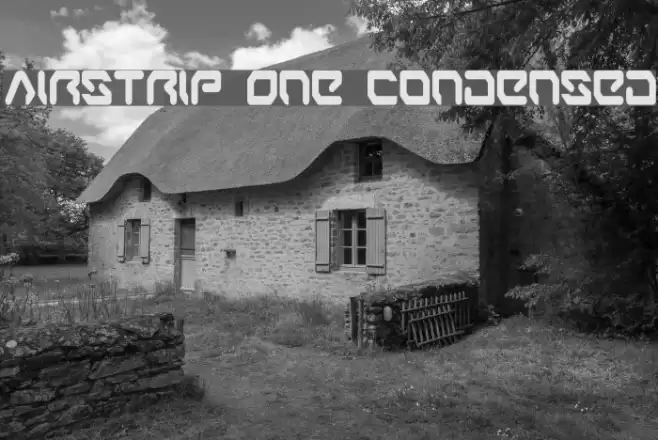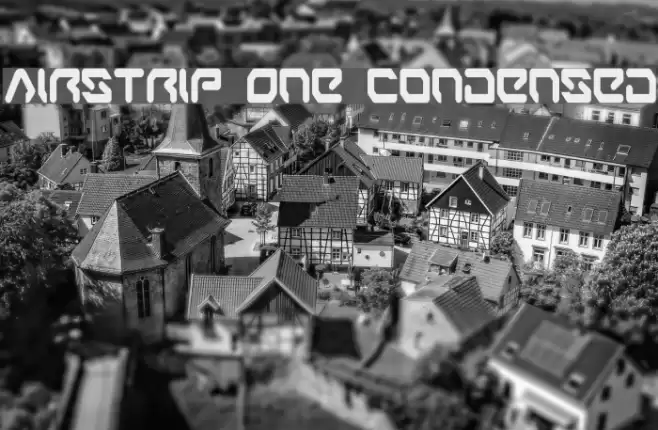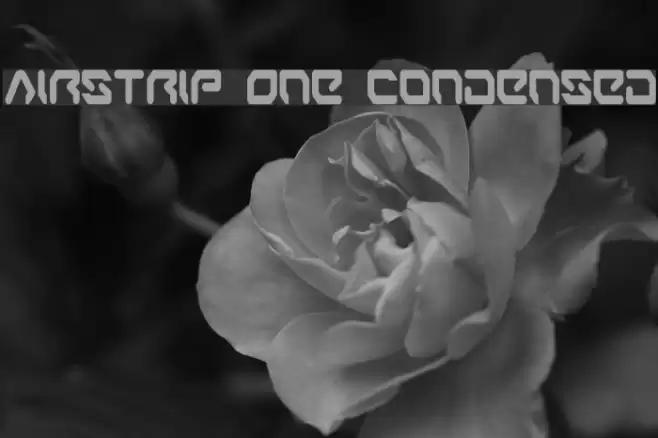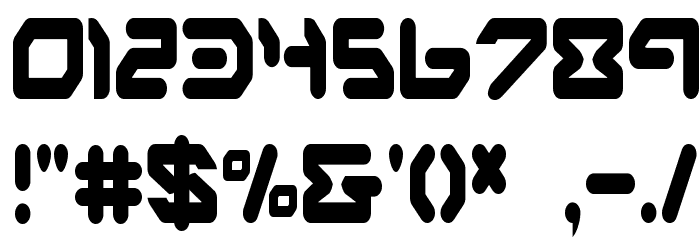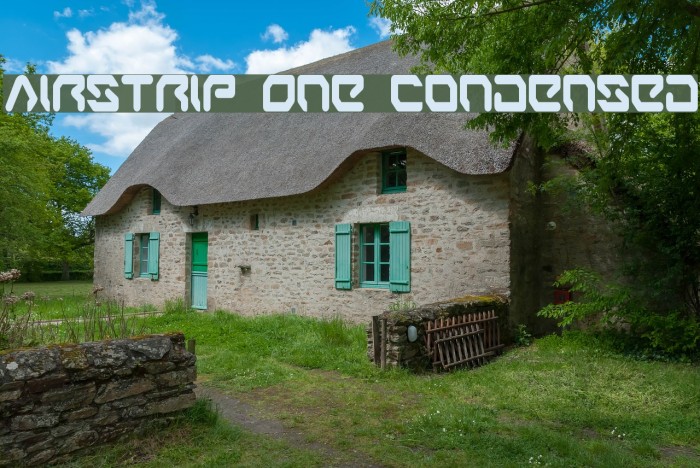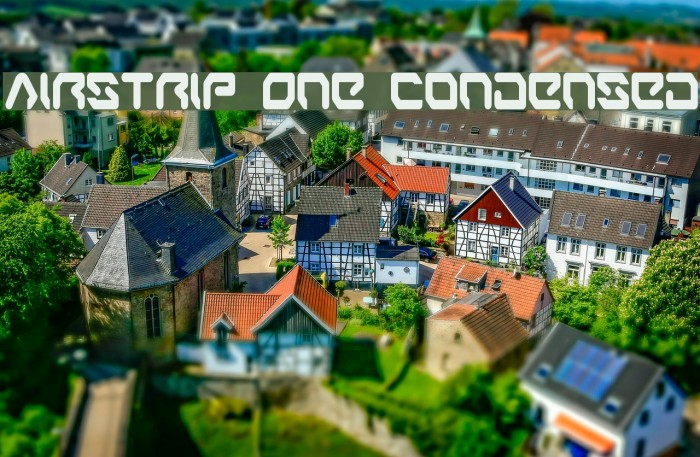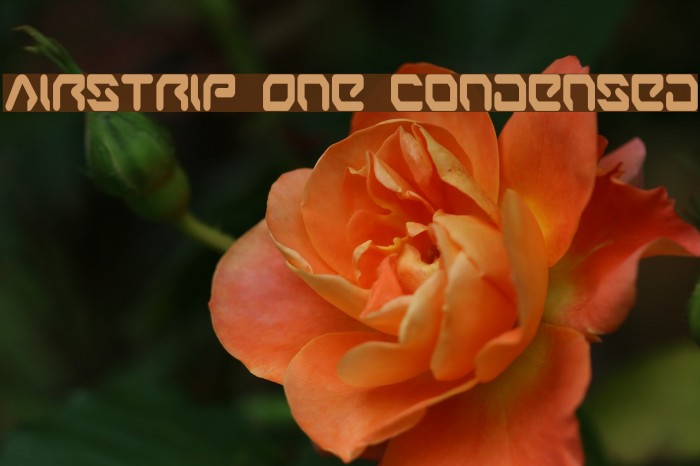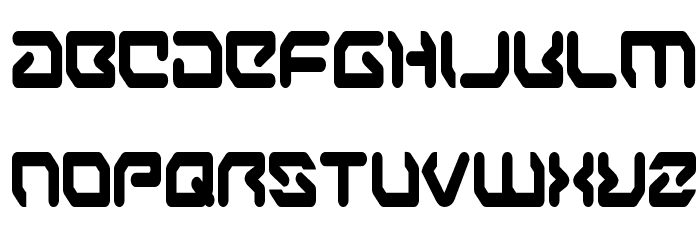
Airstrip One Condensed Font
Airstrip One Condensed Description
This font features a futuristic and geometric design with bold, angular shapes. The characters are condensed, giving them a compact appearance that emphasizes their modern aesthetic. The strokes are thick and uniform, contributing to a strong visual impact. The font's unique style is characterized by its sharp edges and minimal curves, creating a sense of precision and technological advancement. It is well-suited for projects that require a contemporary and edgy look, such as tech branding, sci-fi themes, or modern advertising. The consistent stroke weight and condensed form make it ideal for headlines and display purposes.
A futuristic, geometric font with bold, angular shapes and a condensed form from Futuristic fonts.
- Proposed Projects: Ideal for tech branding, sci-fi themes, modern advertising, and display purposes.